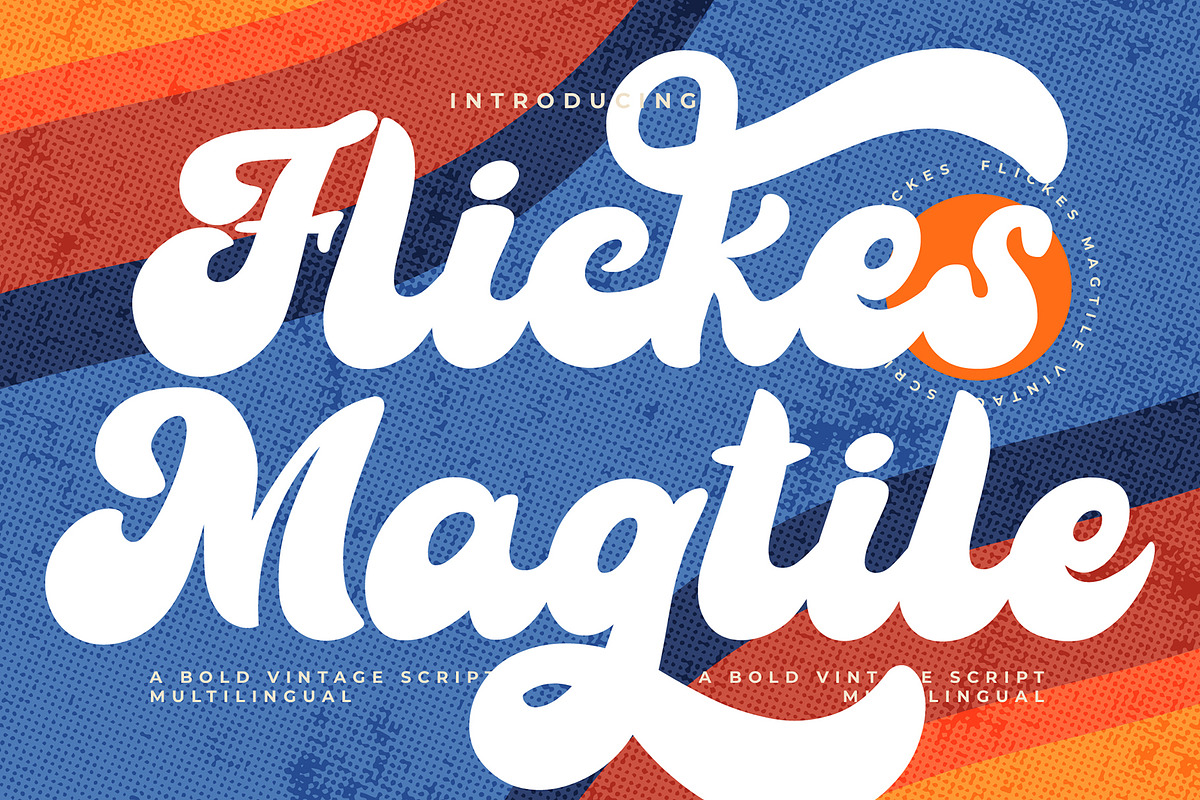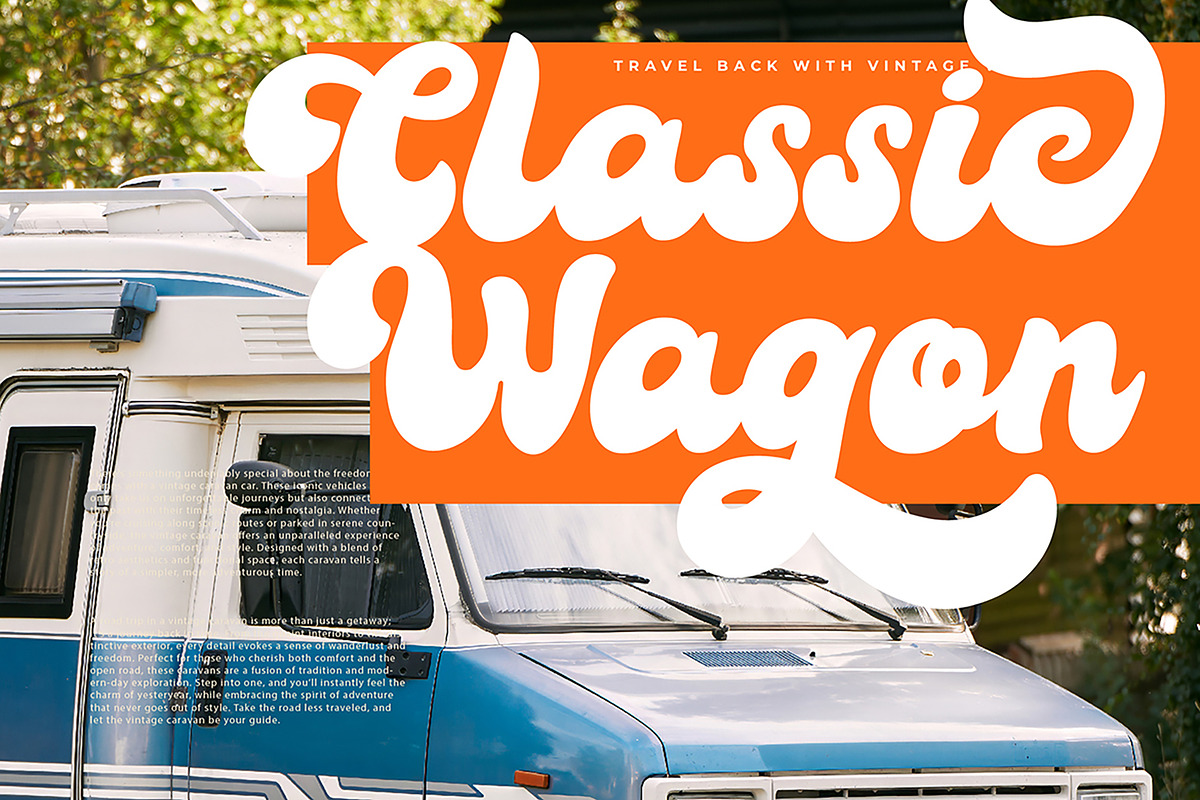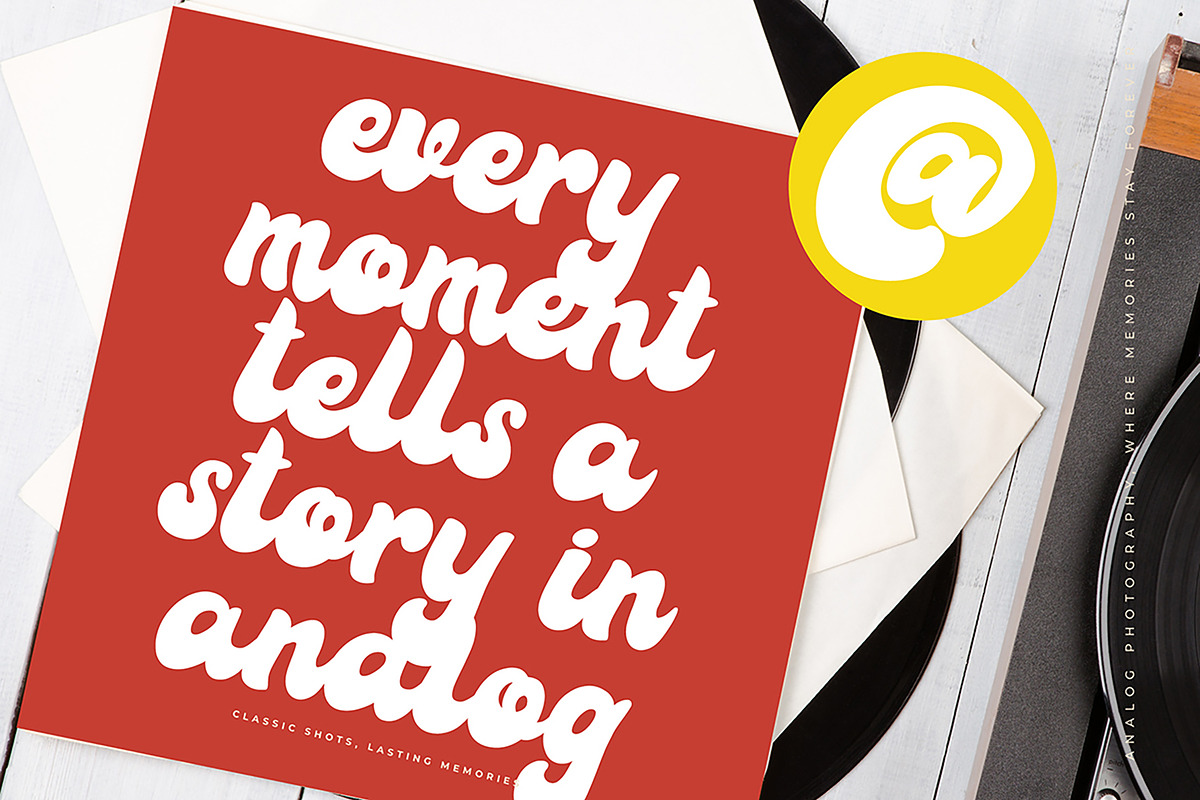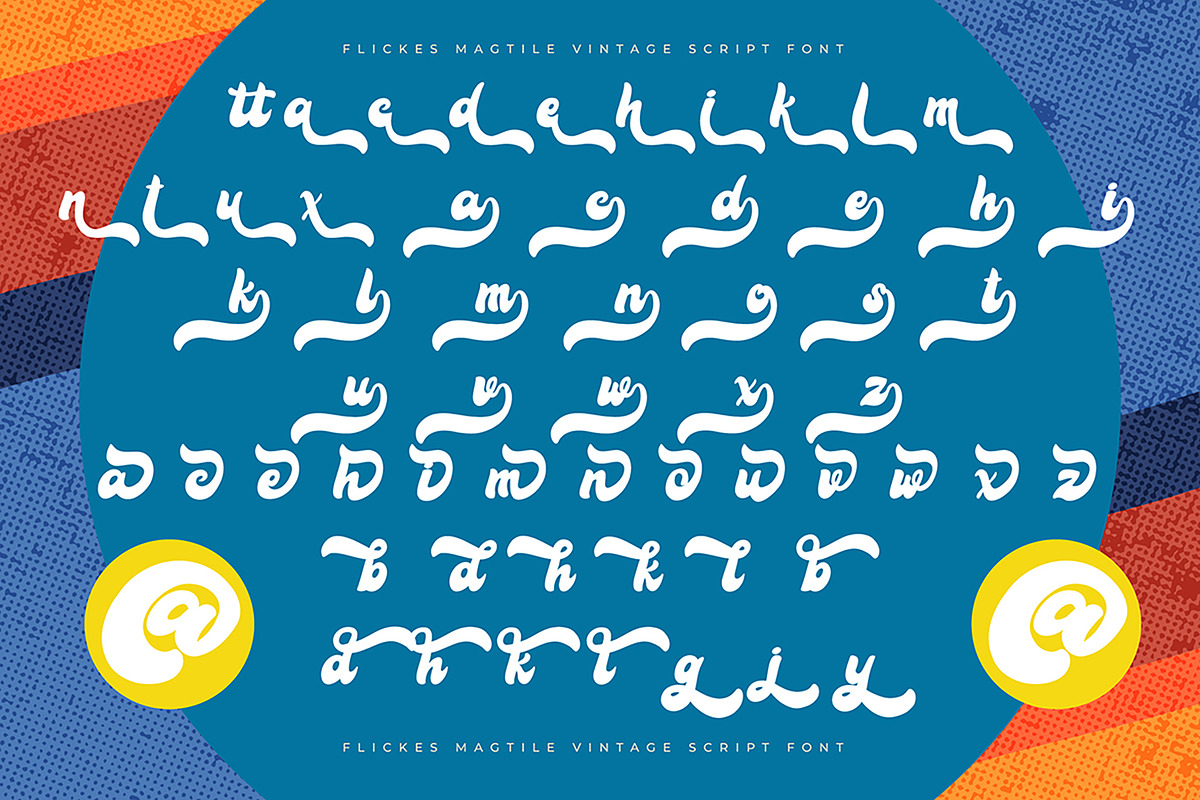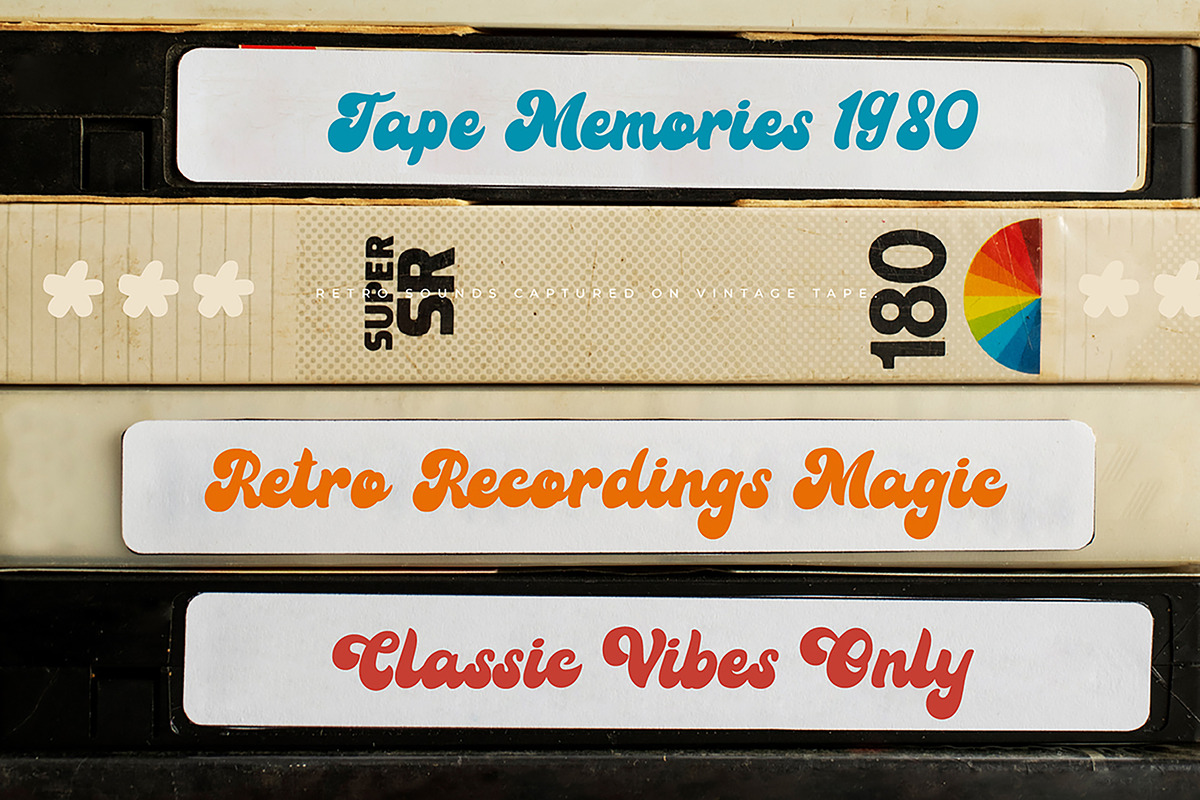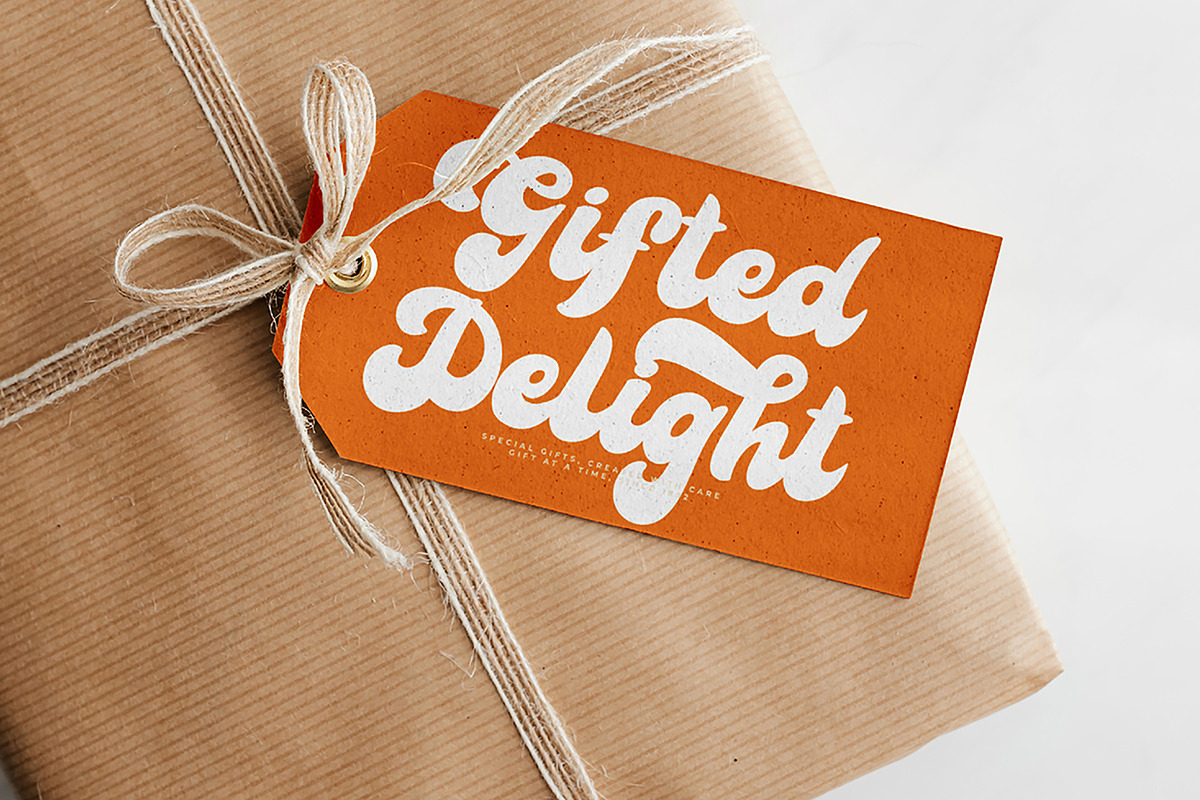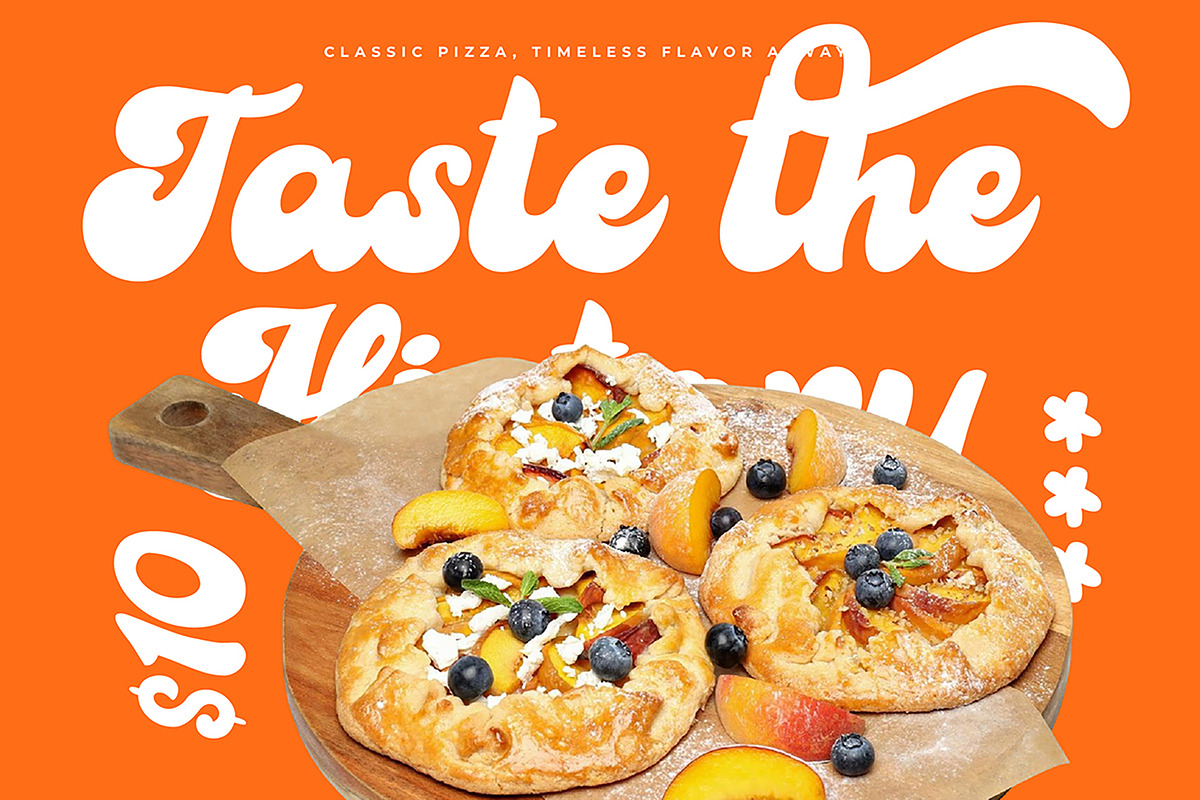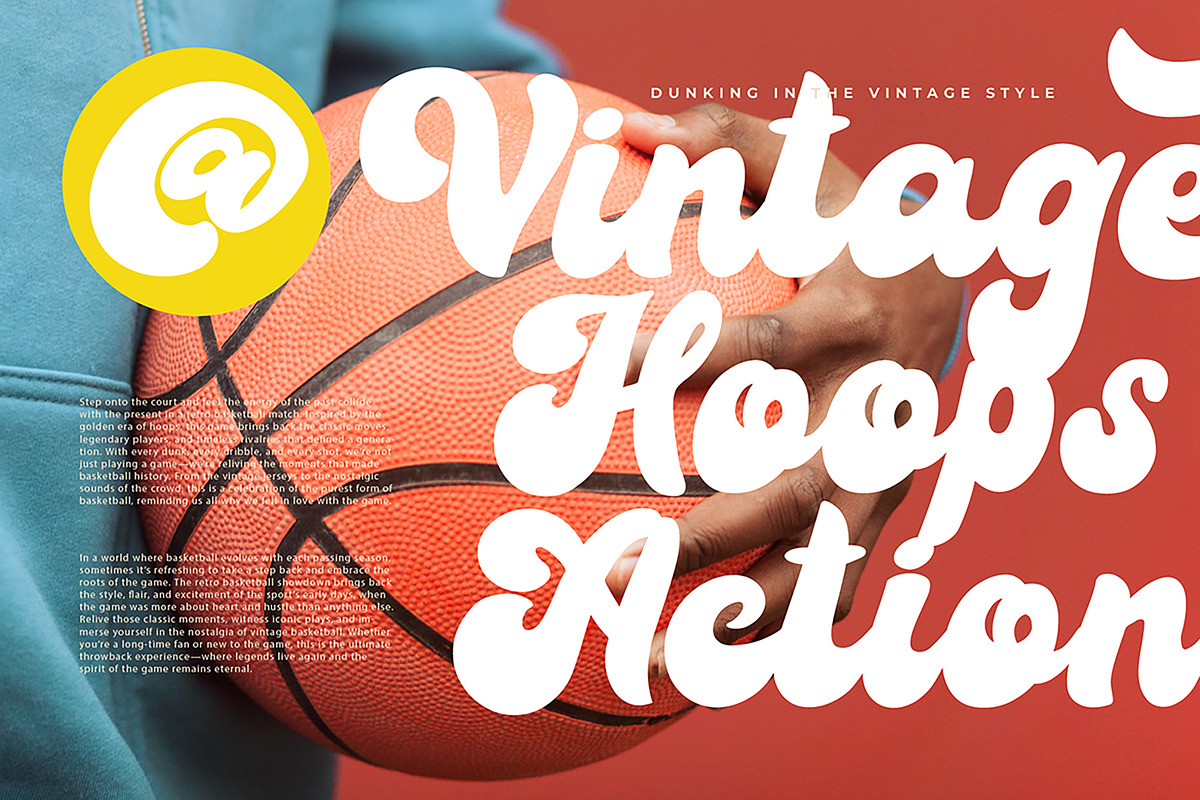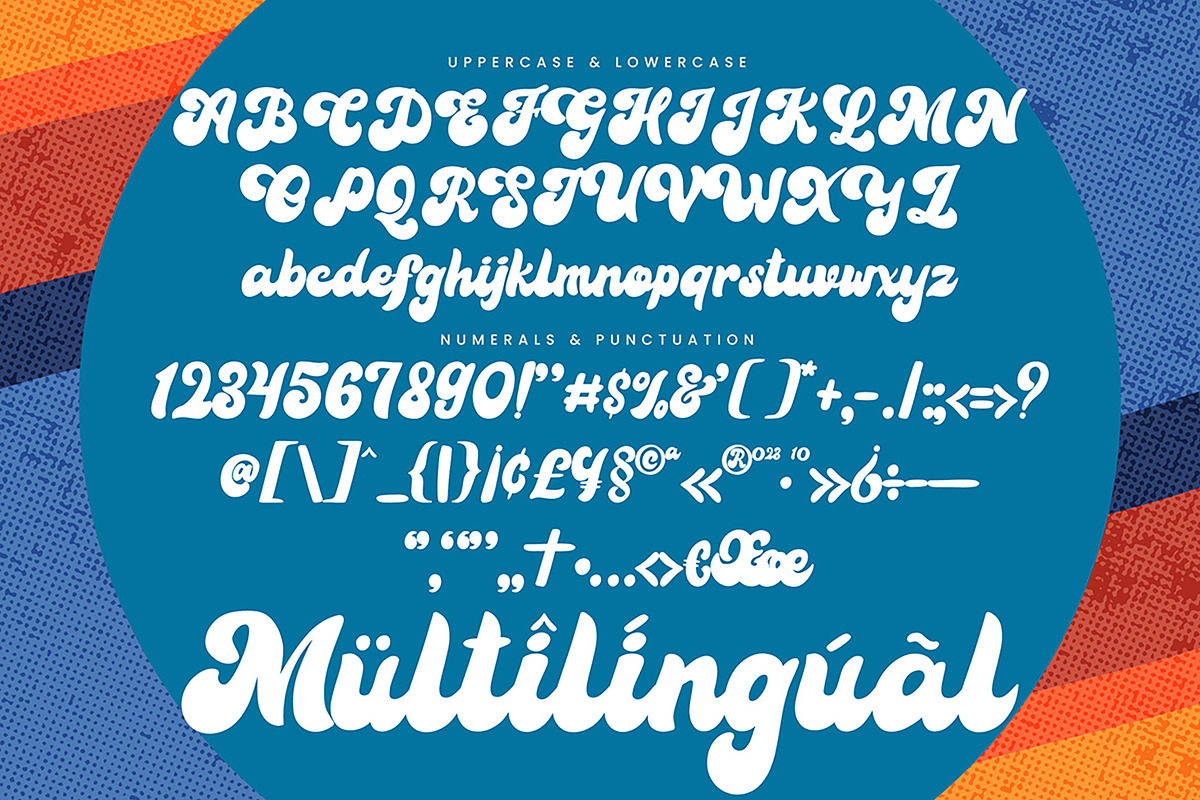
Flickes Magtile Bold Vintage Script
Flickes Magtile Bold Vintage Script Font
Flickes Magtile Bold Vintage Script font is a unique, modern geometric font with a retro, vintage, bold, unique, elegant, modern, and geometric style. It is a bold vintage script font perfect for branding projects, logos, social media posts, product packaging, labels, etc.